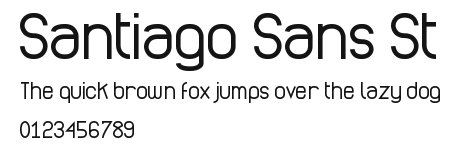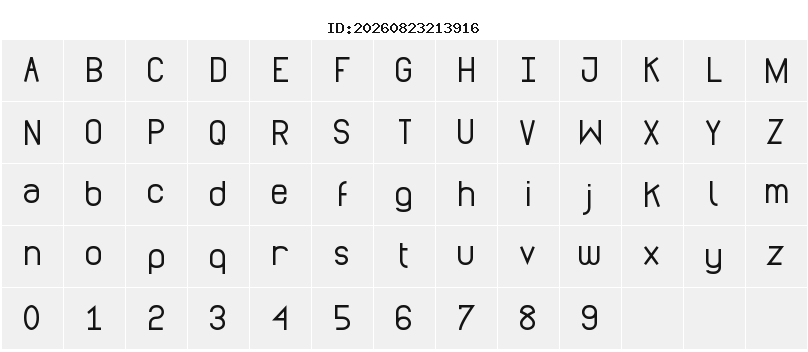
Santiago Sans St Preview
• Font Name: Santiago Sans St
• Full Font Name: Santiago Sans St
• Version: Version 1.00 June 2, 2014, initial release
About Santiago Sans St.ttf
Santiago Sans St.ttf is a modern, elegant sans-serif font designed for ultimate readability and visual harmony. Perfect for branding, headlines, web design, and print materials.